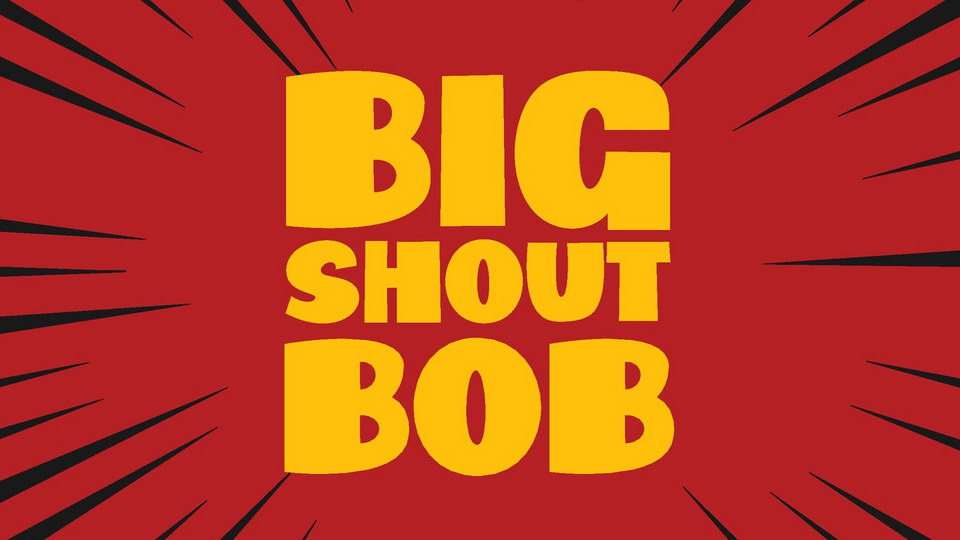
Download Big Shout Bob font, a bold, black, and full of energy display typeface. Big Shout Bob is an all caps with slight differences between upper and lowercase, which both gives your project an amazing attention grabber.